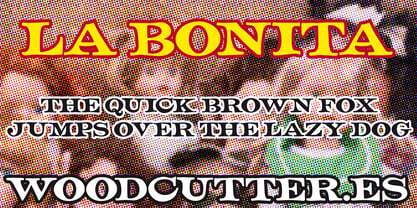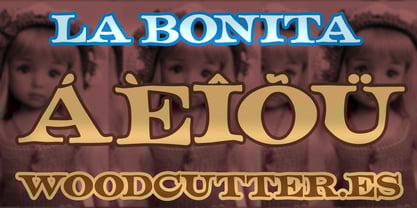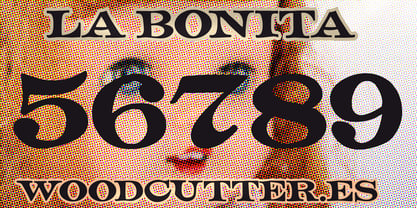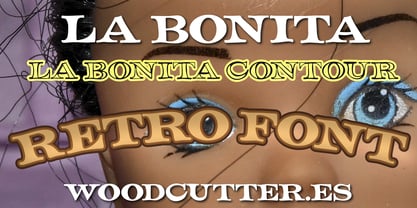
La Bonita
by Woodcutter
The La Bonita Font Family was designed by Jordi Manero and published by Woodcutter. La Bonita contains 2 styles and family package options. More about this family
La Bonita is an all-caps typeface with accents that pays tribute to retro and vintage aesthetics from the mid-20th century. With a clean and bold sans serif style, this font exudes nostalgic elegance and classic charm, making it perfect for posters, logos, labels, or covers that aim to stand out with personality. Its geometric, slightly rounded forms recall the golden age of advertising design, while a modern sensibility makes it versatile and functional.
The typeface family includes two versions:
La Bonita, with solid, confident letters that make a strong visual impact.
La Bonita Outline, offering the same design but in outline form, adding a lighter, more decorative touch ideal for refined headlines or more experimental layouts.
Both variants maintain a consistent visual style and provide complementary options for a wide range of design applications. From artisan product packaging to elegant branding and vintage-style posters, La Bonita is a typeface that blends strength and delicacy in a visually compelling package. It’s a statement of style that embraces the classic with a modern twist.
Designers: Jordi Manero
Foundry: Woodcutter